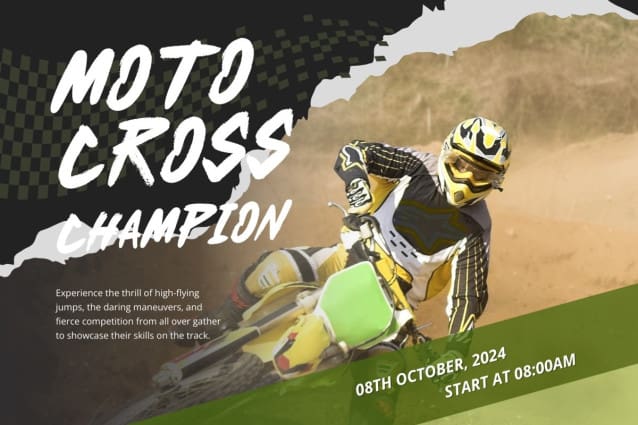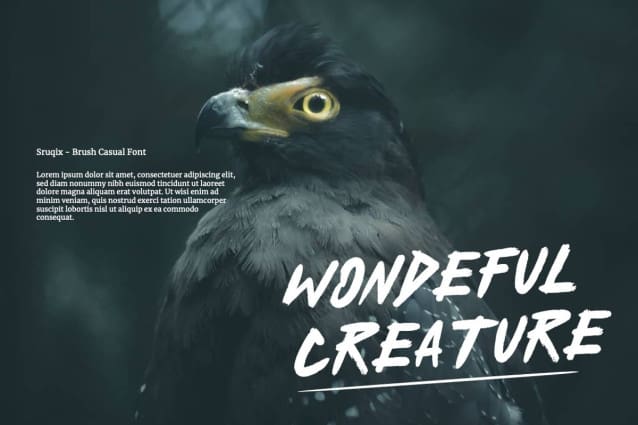
Sruqix Brush Font
Sruqix Brush Font is a flowing and stylish display brush font, created with the help of a brush pen. Get inspired by its unique and beautiful style and add it to your favorite designs!